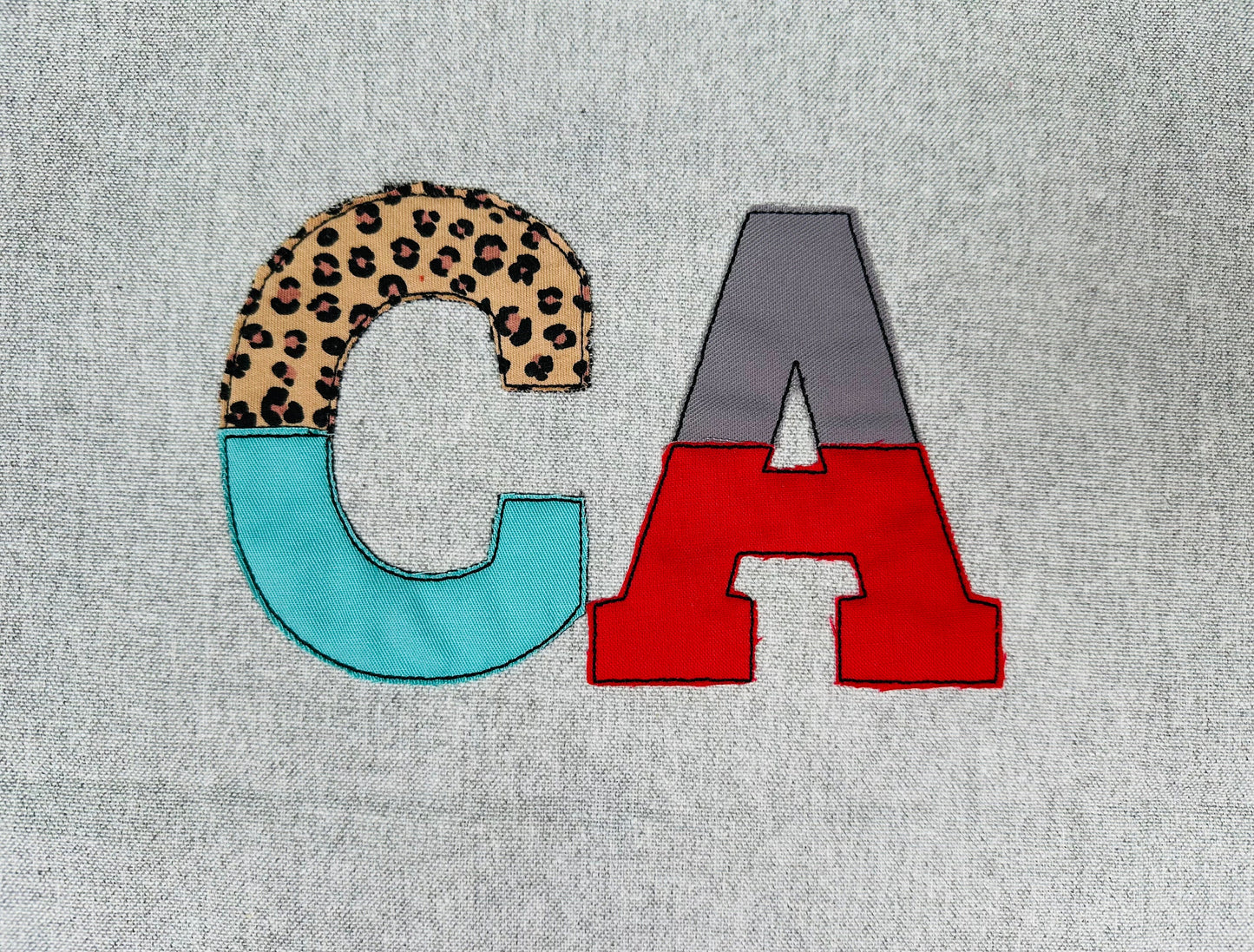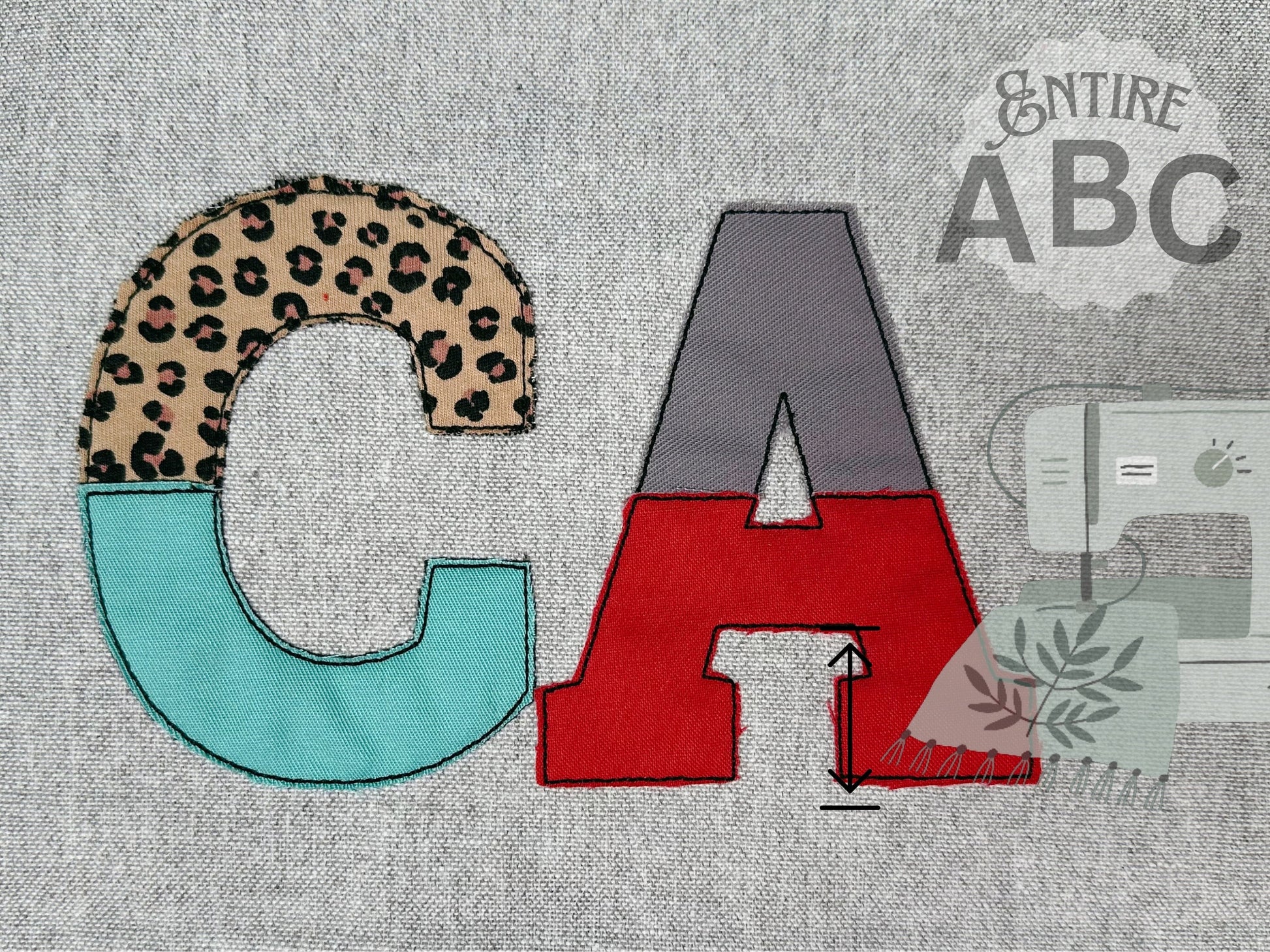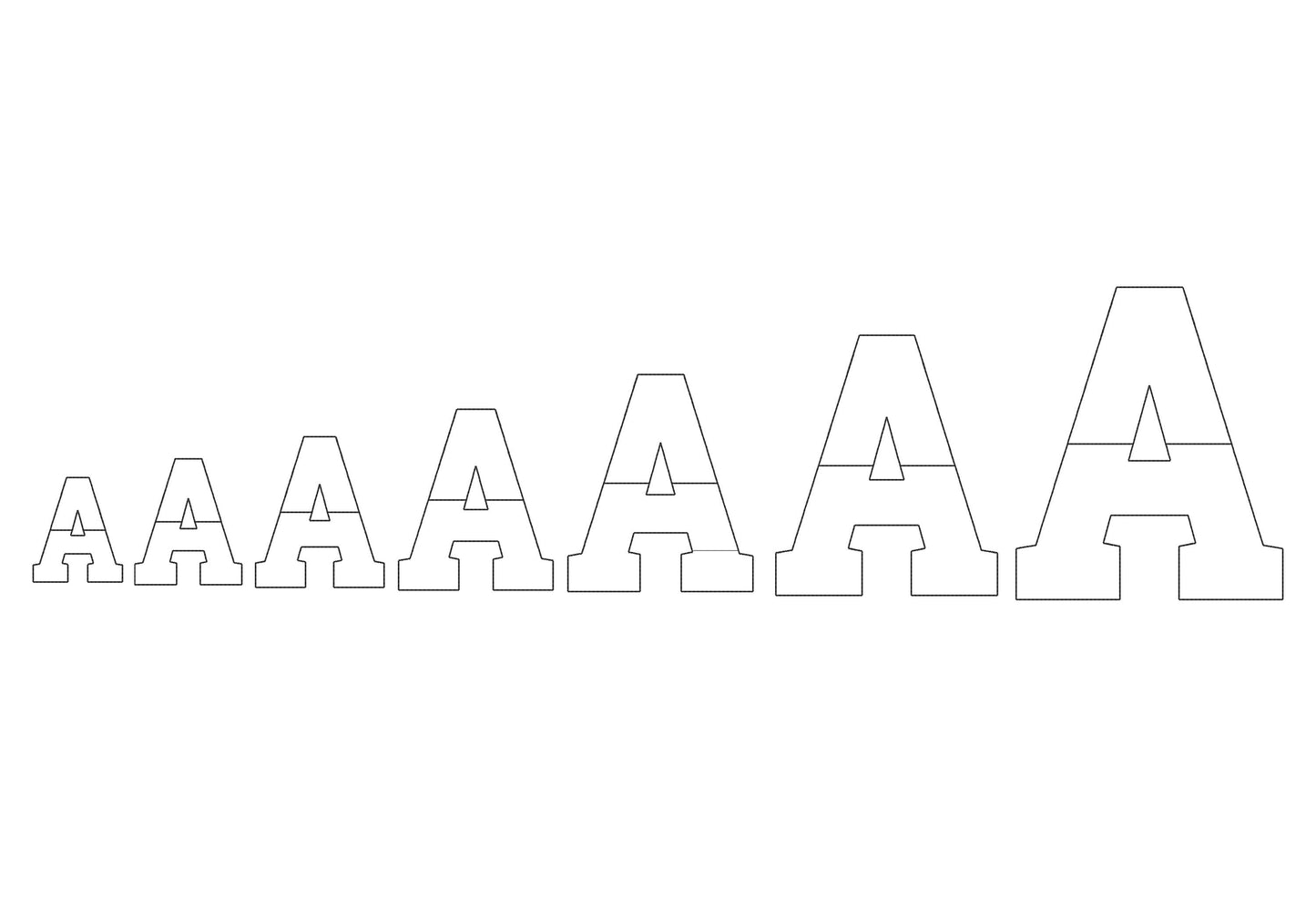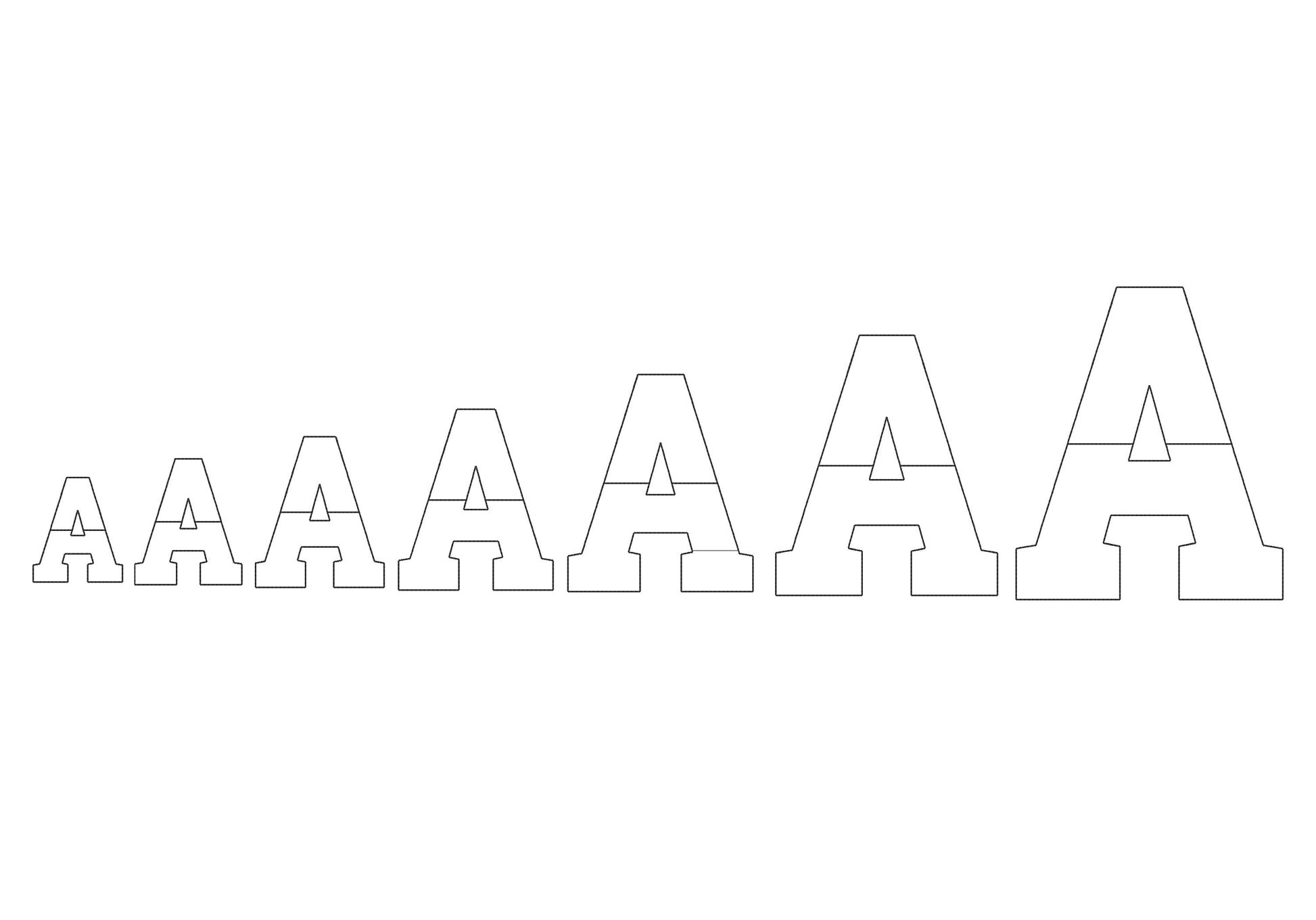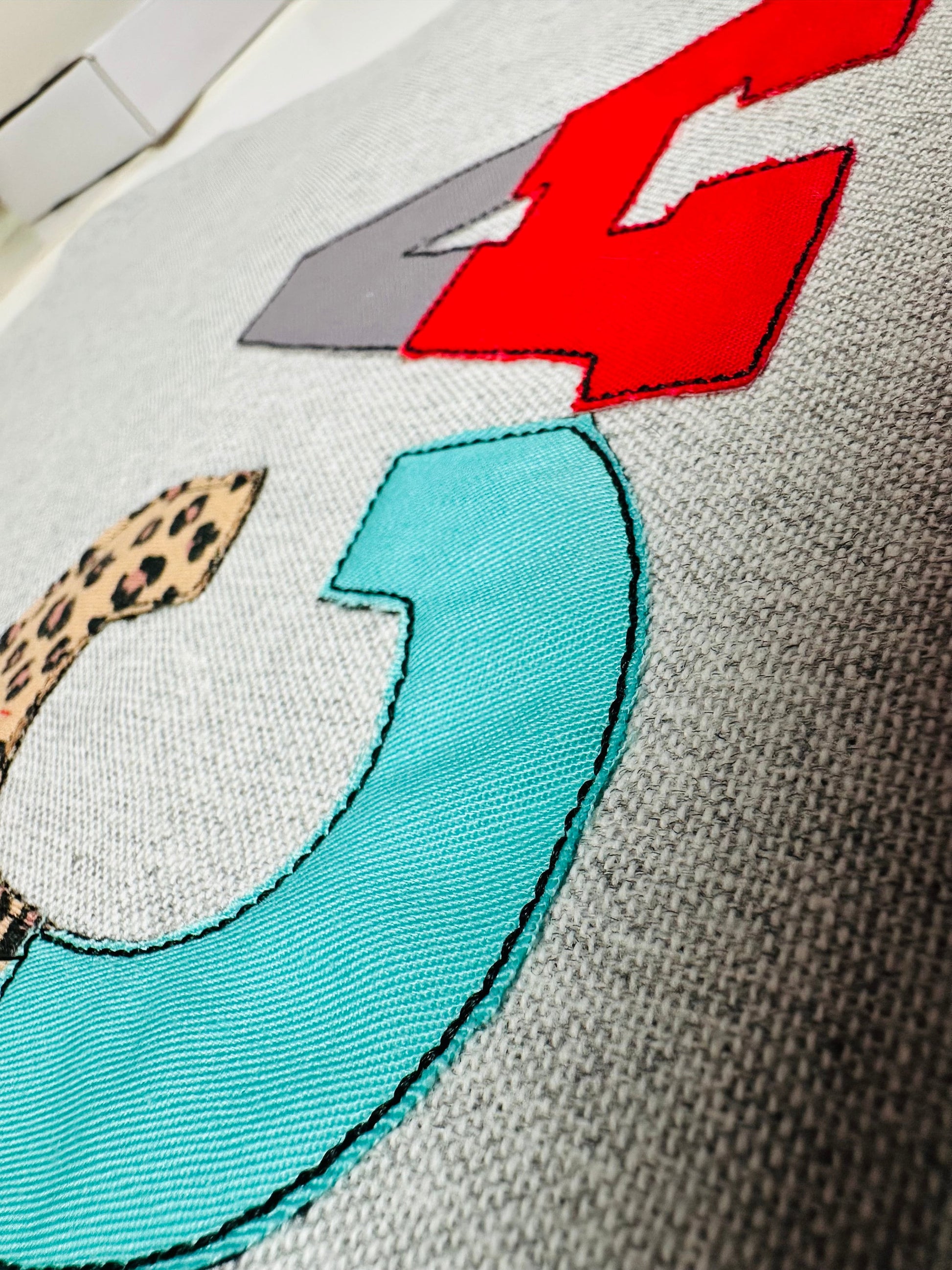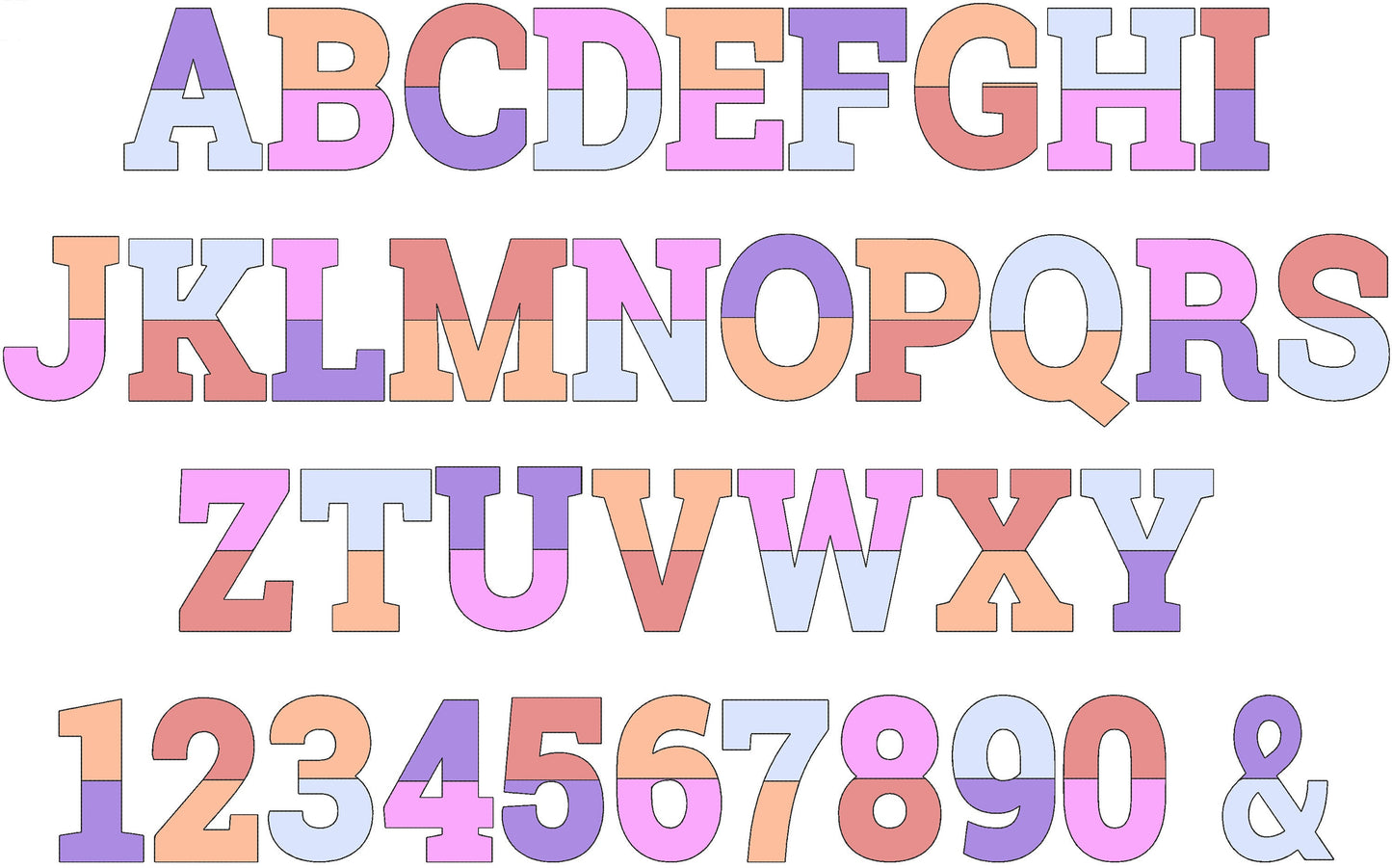
Or click to open the linkA light, open-edge raggedy applique alphabet with a bean stitch outline. Lovely for patchwork quilts, pillows, kids' shirts and bags.
Uppercase letters A to Z, numbers 0 to 9 and an ampersand, with a split version for two colors. Seven sizes: 2, 2.5, 3, 3.5, 4, 5 and 6 inches.